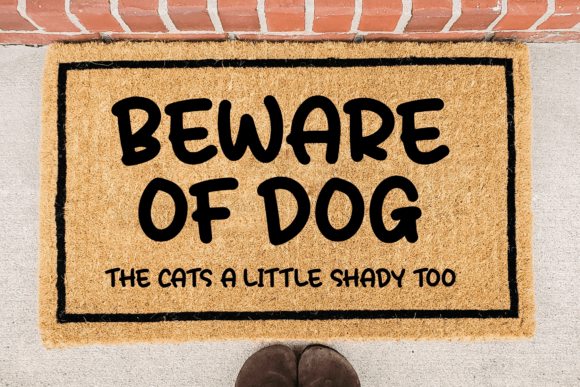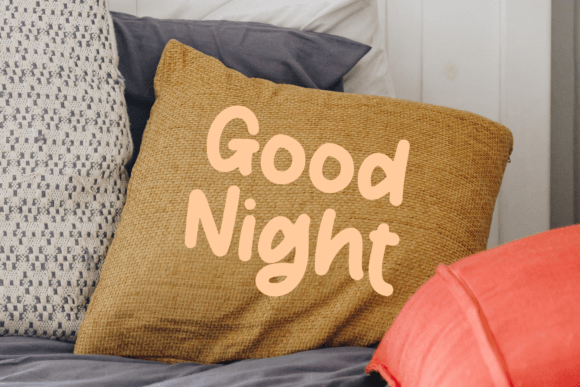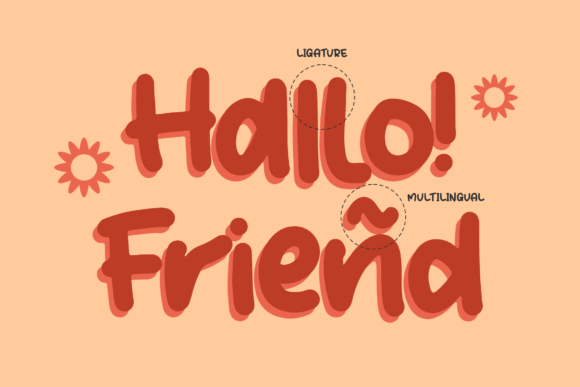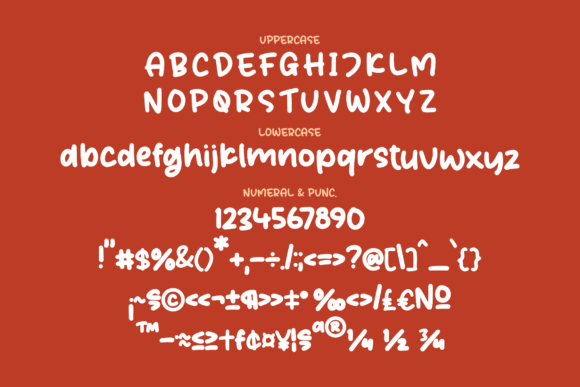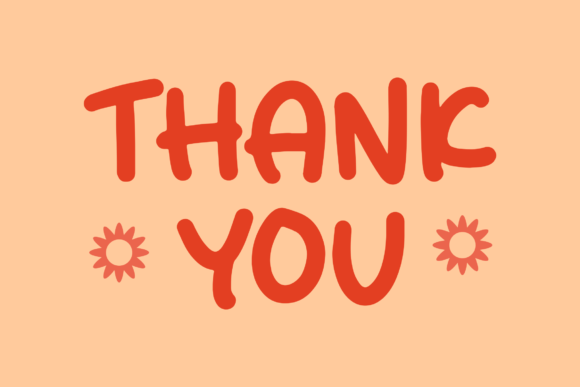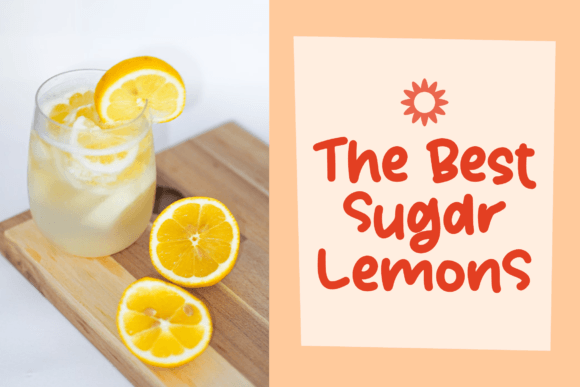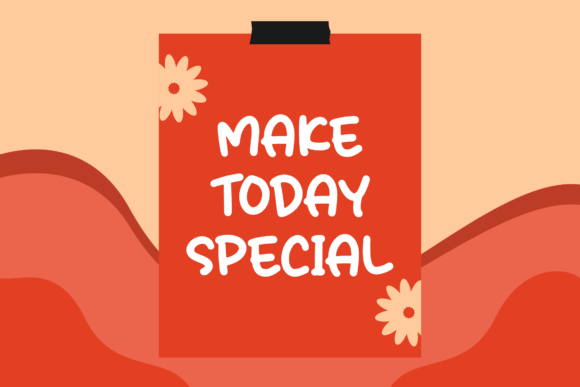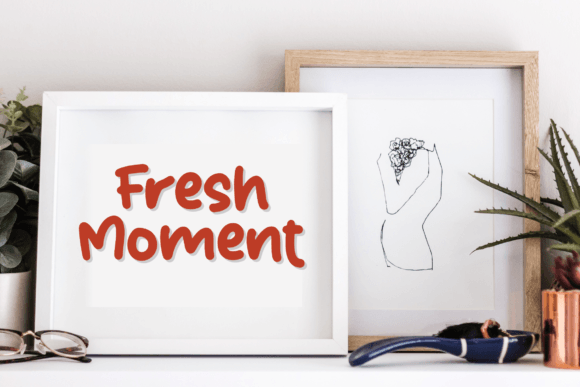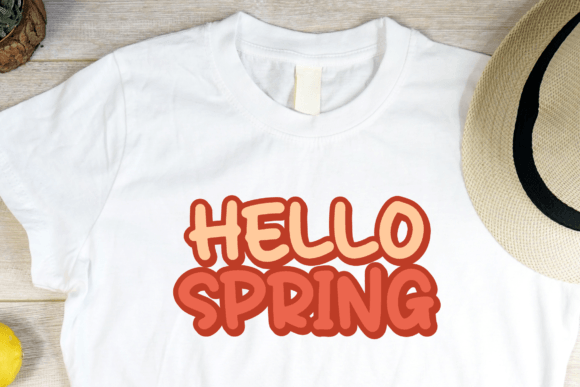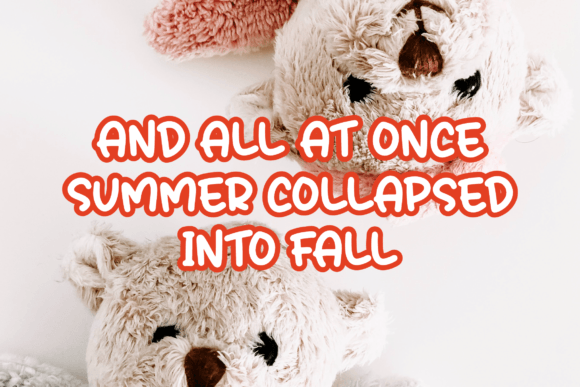
Peachy Honey Font
About Peachy Honey Font
PEACHY HONEY emerges as a lively and amiable display font, designed to bring a sense of fun and friendliness to a variety of creative projects. Its playful nature makes it an ideal choice for a diverse range of applications, including cartoon-related designs, children’s games, quotes, titles, brand names, book covers, posters, or any creation that calls for a touch of joy and vibrancy.
The inherent playfulness of PEACHY HONEY makes it well-suited for projects aimed at younger audiences or those seeking to convey a lighthearted and cheerful atmosphere. Its friendly demeanor adds a touch of warmth to your designs, creating a visually inviting experience for viewers.
Whether you’re crafting content for cartoons, developing engaging materials for children’s games, or simply adding a joyful vibe to quotes and titles, PEACHY HONEY proves to be a versatile and delightful font. Its distinctive style and whimsical shapes contribute to the overall sense of playfulness, making it a fantastic choice for designers looking to infuse their creations with a sense of joy.
The font’s adaptability extends to various design contexts, including brand names, book covers, and posters. PEACHY HONEY’s ability to convey a friendly and approachable tone makes it suitable for projects where building a positive connection with the audience is essential.
In summary, PEACHY HONEY is more than just a font; it’s a fun and friendly design tool that adds a touch of joy to your creative endeavors. Whether you’re creating content for children, designing quotes, or working on brand-related materials, this font stands out as a great choice that brings a playful and inviting charm to your designs.